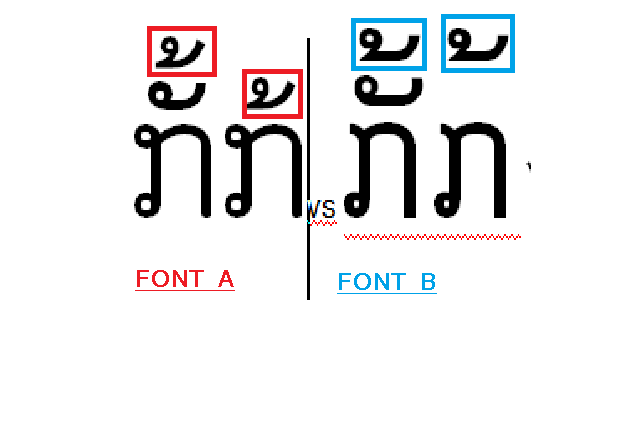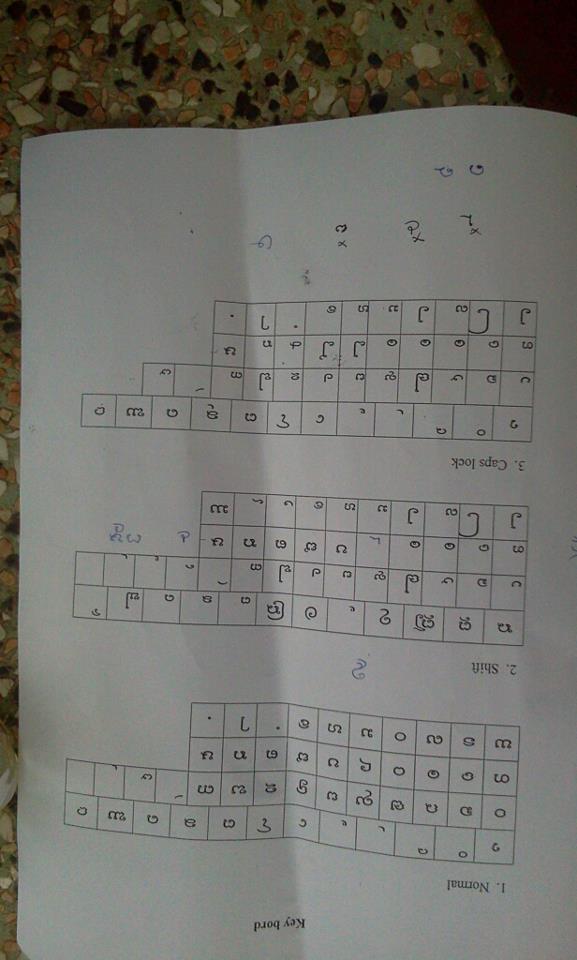
I am looking for the software that would help me to create my own font for my own language (Lao), there are some people create Lao font, so I have notice there is few people who could create perfect lao font , please have a look at my attached file
I would compare 2 lao font (Unicode)
- I call font A and Font B , the perfect one is font A
- I did mark the problem character in the 2 fonts , you could see that :
- in Font A, at the first case that character stay higher and stay lower if there is no another character between !
- in Font B, at the first case and the second case, it always stay at the same position, it looks very ugly for lao font
- they are unicode
- the question is :
- could any body tell me that how could they do that in Font A ?
- FontCreator may allow me to archive that ?
- and advise ?
- I am creating standard Lao unicode and Lao font, so if you could share your knowledge
Font A uses OpenType Features, which are not supported by FontCreator yet.
You need to use other software such as Microsoft VOLT or the utility recommended in the tutorial thread on Adding OpenType Features after creating the glyphs with the correct Unicode glyph mappings and postscript names in FontCreator.
I have no experience of adding vertical positioning features, but the originator of that thread seems to have achieved it for his font Quivira. I suggest studying that thread and the linked tutorial, or ask on the MS VOLT forums if you prefer to use that.
Perhaps there are some other users who can help you with this.
thank you for your reply, the clues that you gave me , I have found that what I have to start is something about : ligature , I thought I would be easy but , now it’s about open type feature, and fontcreator is not support that feature right!. so it’s only MS VOLT that I am able to begin with? I have download MS VOLT but I have no idea to do with that , I am looking for the tutorial for that, if you could help it’s very appreciated.
I have noticed your profile and your website, you have the Paly font, so I think I should let you know my purpose of creating this lao font
- I would improve lao font Unicode, add more character…
- I would put Lao Tham (which it is used in the temple) to Lao Unicode.
I could say that creating a new font it’s very new to me , and this feature of opentype making me confuse and I don’t know how to begin , if you could advise
I have not used VOLT. Ask on their forums if you want help with it.
I use the utility in the Tutorial thread that I linked to above to add ligatures, but I have no experience of adding vertical positioning features, which is what I think you need, not just ligatures.
I am afraid you will have to work it out for yourself by studying the tutorials unless the author of Quivira passes by and offers to help, or someone else with the relevant experience.
Some text about Lao script is in part of the following document.
I have found that:
- there are some standards like : OT, TTF, PS , so the OT one is the best for Lao font (and many people using it!) , because there is a feature which allow some characters or glyphs to move around without re-create the same characters or glyphs with different purpose, but not for all platform!
- TTF one , it’s very easy to create and design , if I need to improve current Lao font , I have to improve Lao Unicode table as well, put more character code , I already have some ideas in my mind !
- PS, I have no idea about it yet,
- I don’t know that , if there is some Font experts here , what would you recommend ?
–>my idea: improve Lao TTF (it would become my start point and standard) → improve Lao Unicode table (put more combined characters) -->perhaps, create and improve OT later
You really need to talk to others who use Lao fonts — we have no clue how well existing fonts work in different software, what keyboard layouts Lao users prefer, etc.
OpenType fonts won’t work on all software, but Word 2010 and PagePlus X5 or X6 support them, as well as expensive solutions like InDesign.
OpenOffice is probably the most important software to support — ask how to get Lao fonts working on that.
thank you for you all valuable knowledge, now I think I have enough clues, to begin this Lao font project, and honestly I have another reason that why I have to jump to foreign forum first instead of internal forum , which I probably not mention here.
so the solution :
- I would create Lao font base on TTF, so other people would be easy to learn and create after on
- and the Unicode table would be modified a little .
- OT or other complex thing would be the next step even it is the best thing for Lao font , but I have no choice and I have to learn it first and spread the knowledge later